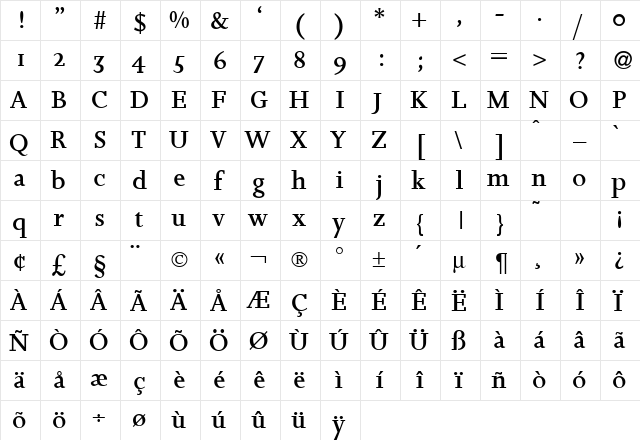
JosephDB Normal Font Preview
JosephDB Normal
JosephDB Normal Font Details
Design Context for JosephDB Typeface
JosephDB is a composed and adaptable typeface that performs quietly and consistently across a wide range of design contexts.
Pro Tip: Use JosephDB in both headline and body roles to test its range before committing to a single application.